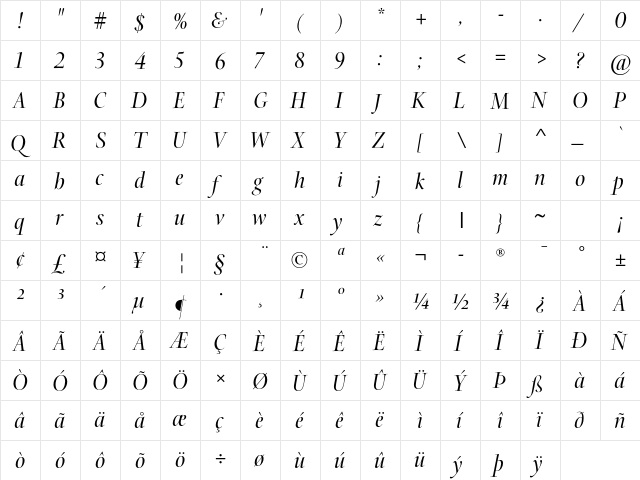
Arepo Std Italic Font Preview
Arepo Std Italic
Design Context for Arepo Std Typeface
Arepo Std is a composed and adaptable typeface that performs quietly and consistently across a wide range of design contexts. The dynamic lean of this cut emphasises speed and emphasis in any layout.
Pro Tip: Use Arepo Std for emphasis, pull quotes, and subheadings where its slanted energy can add rhythm to the layout.